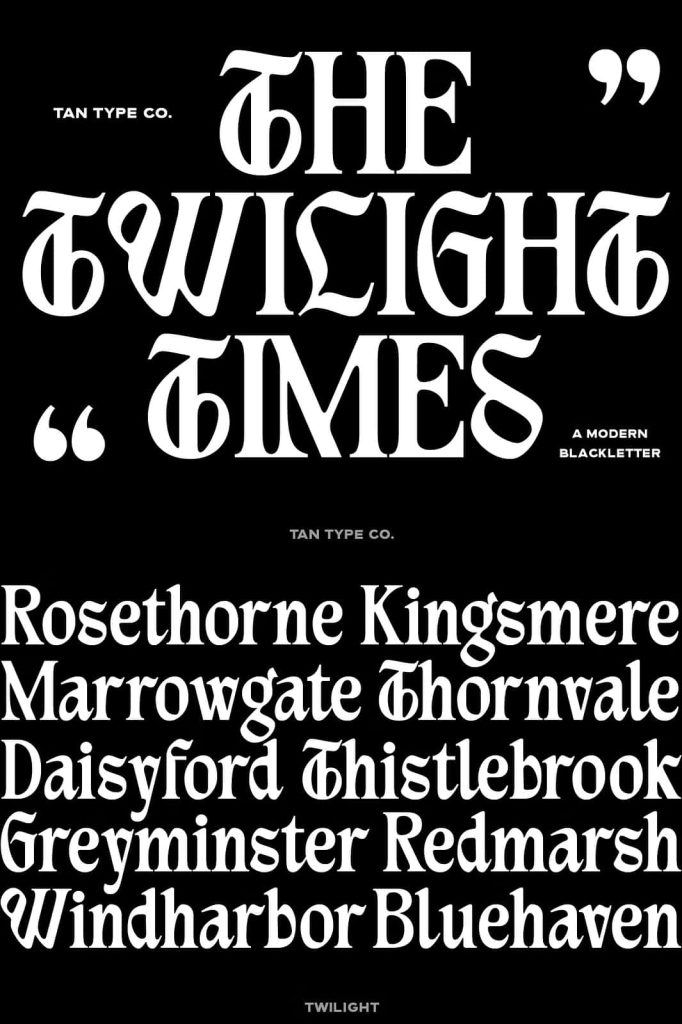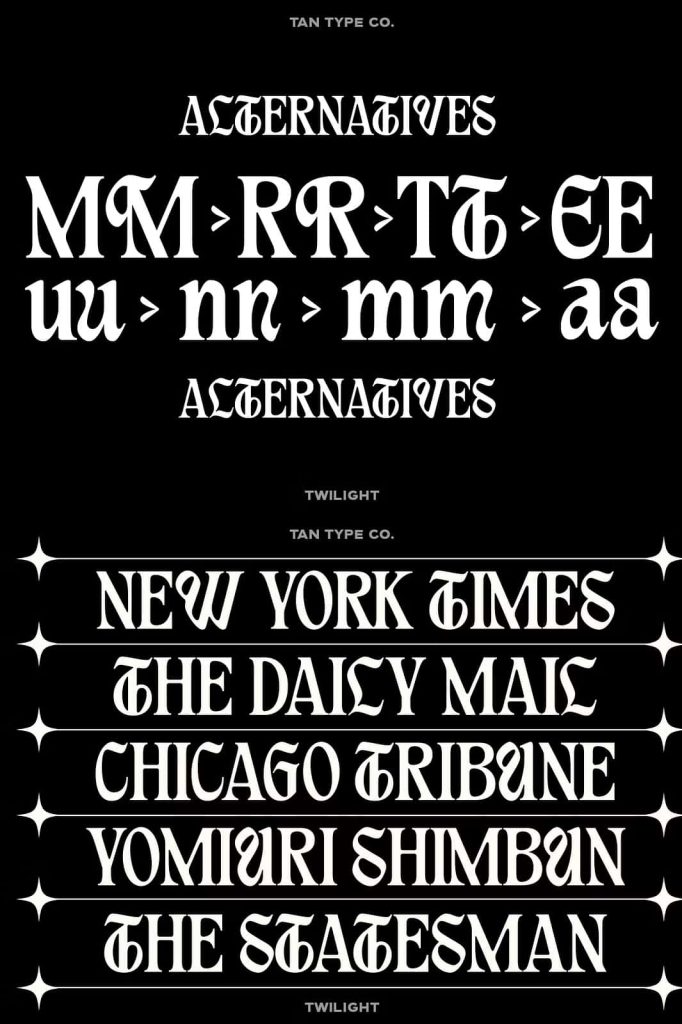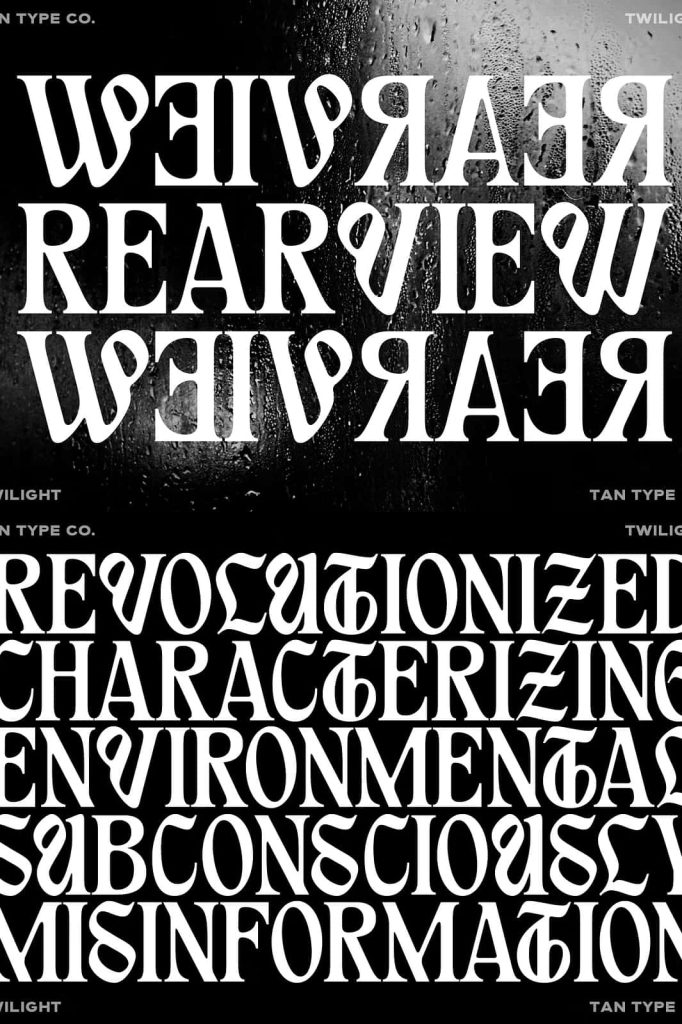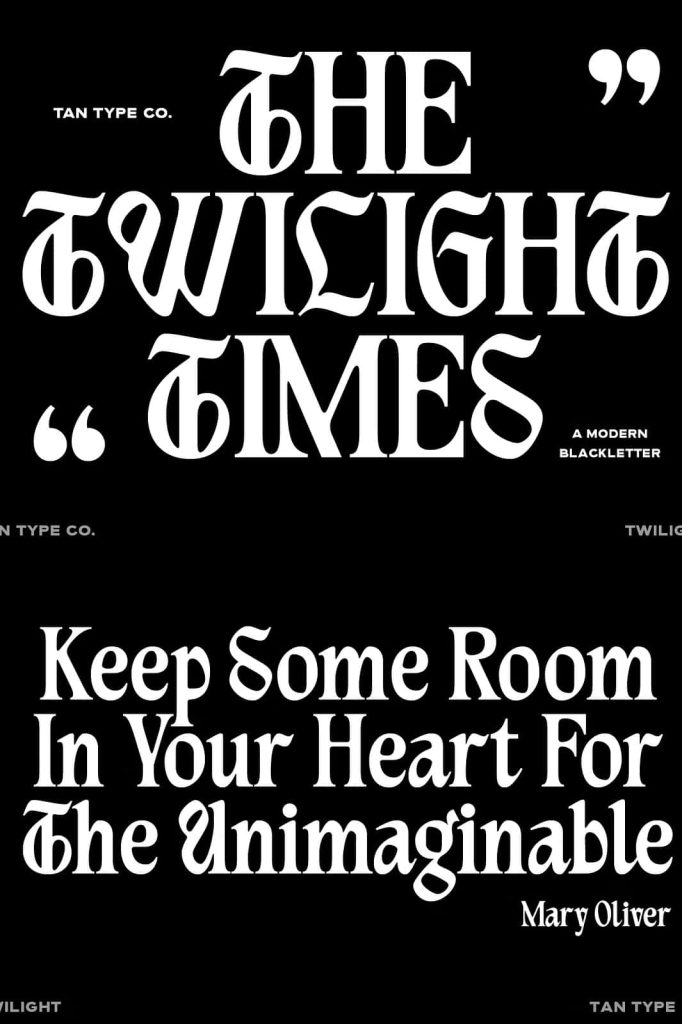
TAN Twilight Modern Blackletter Font for Bold and Contemporary Design
TAN Twilight is a modern interpretation of the classic blackletter typeface, thoughtfully redesigned for today’s creative landscape. While it embraces the bold personality and unmistakable character of traditional gothic lettering, it introduces sleek lines, simplified forms, and refined curves that make it feel fresh, stylish, and remarkably versatile. The result is a display font that captures attention without overwhelming the viewer, making it an excellent choice for designers who want typography that feels both timeless and contemporary.
Unlike conventional blackletter fonts that often appear heavy or highly ornamental, TAN Twilight strips away unnecessary complexity while preserving the distinctive attitude that makes blackletter typography so iconic. Its balanced construction creates a sophisticated visual identity that feels dramatic without becoming intimidating, allowing designers to produce elegant branding, impactful headlines, memorable logos, and modern editorial layouts with ease.
A Contemporary Approach to Blackletter Typography
Blackletter has long been associated with tradition, heritage, and expressive craftsmanship. TAN Twilight reimagines this historical style by introducing a cleaner and more approachable design language. Every character has been carefully refined to maintain the sharp visual identity of gothic typography while improving readability and flexibility for modern creative projects.
The simplified letterforms eliminate excessive decorative details, allowing each character to communicate strength and elegance in equal measure. Smooth curves blend seamlessly with angular elements, creating typography that feels dynamic, fashionable, and perfectly suited for contemporary branding and visual communication.
Bold, Sleek, and Full of Personality
TAN Twilight delivers an unmistakable presence wherever it appears. Its bold structure naturally commands attention, making it an outstanding display font for projects that require immediate visual impact. Despite its confident appearance, the font remains clean and refined, allowing it to work across both minimalist and expressive design styles.
This combination of strength and sophistication makes TAN Twilight highly adaptable. Designers can confidently use it for luxury branding, fashion campaigns, album artwork, product packaging, event promotions, editorial publications, and creative marketing materials that need a memorable typographic voice.
Key Features
- Modern interpretation of classic blackletter typography
- Clean and simplified gothic-inspired letterforms
- Sharp edges balanced with smooth contemporary curves
- Bold display font with exceptional visual impact
- Highly readable for headlines and branding
- Perfect for logos, posters, fashion, and editorial projects
- Works beautifully in both print and digital media
- Combines timeless character with modern aesthetics
Create Memorable Logos and Brand Identities
Typography is one of the most important elements of successful branding, and TAN Twilight provides a distinctive voice that instantly sets brands apart. Its contemporary blackletter style communicates originality, confidence, and sophistication while remaining approachable enough for modern audiences.
The font performs exceptionally well for premium logos, fashion labels, lifestyle brands, creative agencies, music projects, luxury products, cafés, and boutique businesses. Whether used as the centerpiece of a visual identity or paired with minimalist supporting fonts, TAN Twilight creates branding that feels refined, memorable, and visually striking.
Perfect for Headlines and Editorial Design
Headlines need typography that captures attention immediately, and TAN Twilight excels in large display applications. Its bold forms and elegant proportions ensure that every title becomes a focal point while maintaining excellent readability.
Magazine covers, editorial spreads, book titles, promotional banners, and website hero sections all benefit from the font’s dramatic yet polished appearance. Designers can create strong visual hierarchy while preserving a clean and contemporary aesthetic that feels current across both print and digital publications.
Ideal for Posters and Creative Campaigns
Whether you’re promoting an event, launching a new product, or creating artistic promotional materials, TAN Twilight delivers the visual impact needed to stand out. The font’s combination of gothic inspiration and modern refinement creates typography that feels energetic, expressive, and highly memorable.
Its unique personality makes it an excellent choice for concert posters, fashion campaigns, gallery exhibitions, social media advertisements, creative portfolios, and promotional graphics where typography serves as the primary visual element.
Fashion Branding with Modern Edge
Fashion brands often seek typography that feels exclusive, stylish, and distinctive. TAN Twilight brings exactly that balance by blending traditional blackletter influence with contemporary elegance. The result is typography that complements luxury fashion, streetwear collections, designer apparel, accessories, cosmetics, and premium lifestyle products.
Whether you’re designing memorable logos, impactful headlines, stylish fashion branding, creative posters, luxury packaging, or editorial layouts, TAN Twilight provides the versatility and visual confidence needed to elevate every project. If you’re looking for a modern blackletter font that balances tradition with innovation, TAN Twilight is a powerful addition to any designer’s font collection.